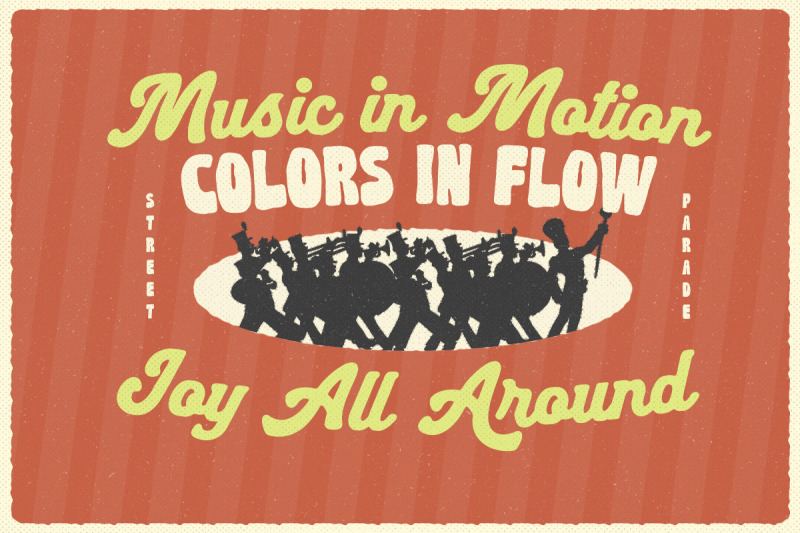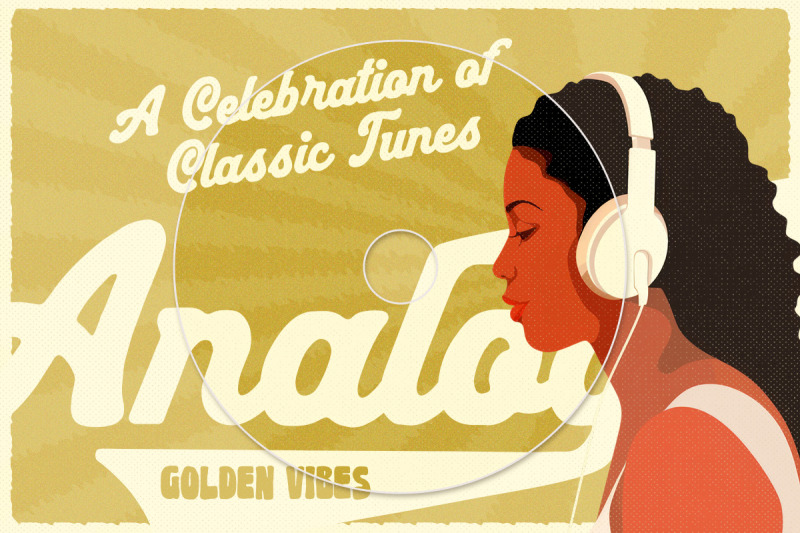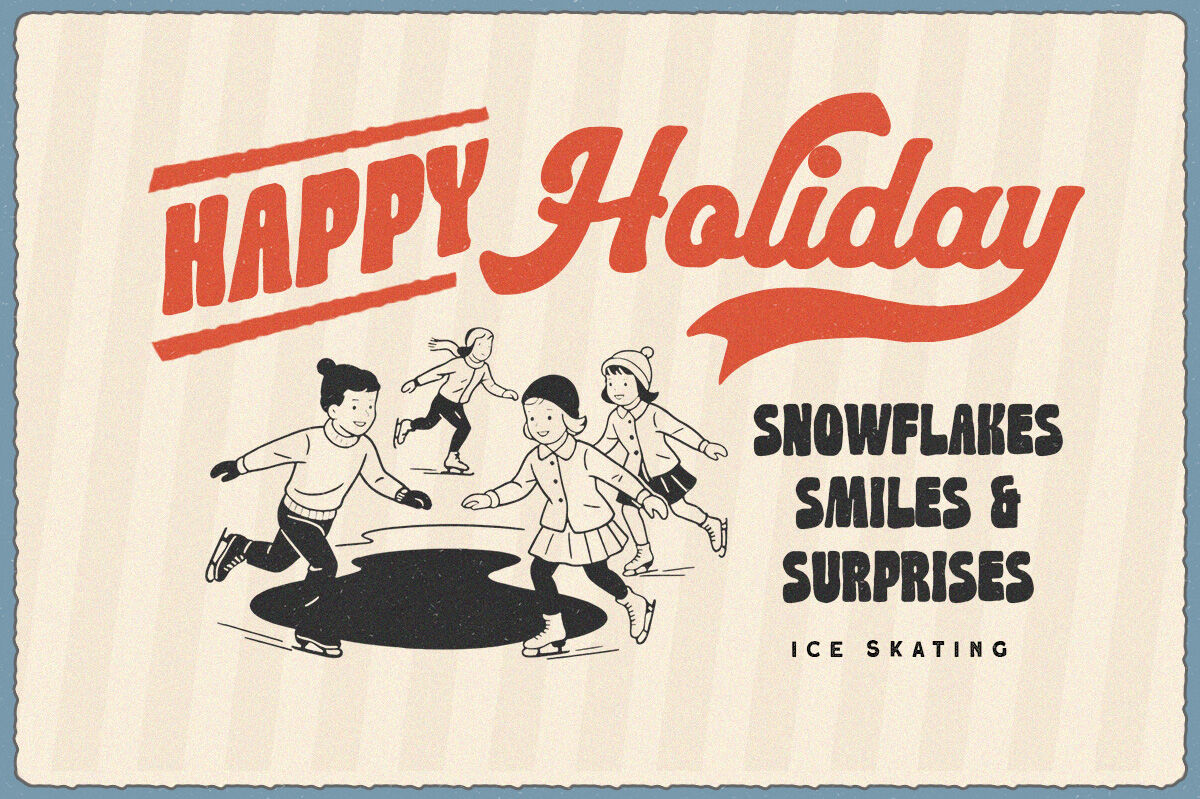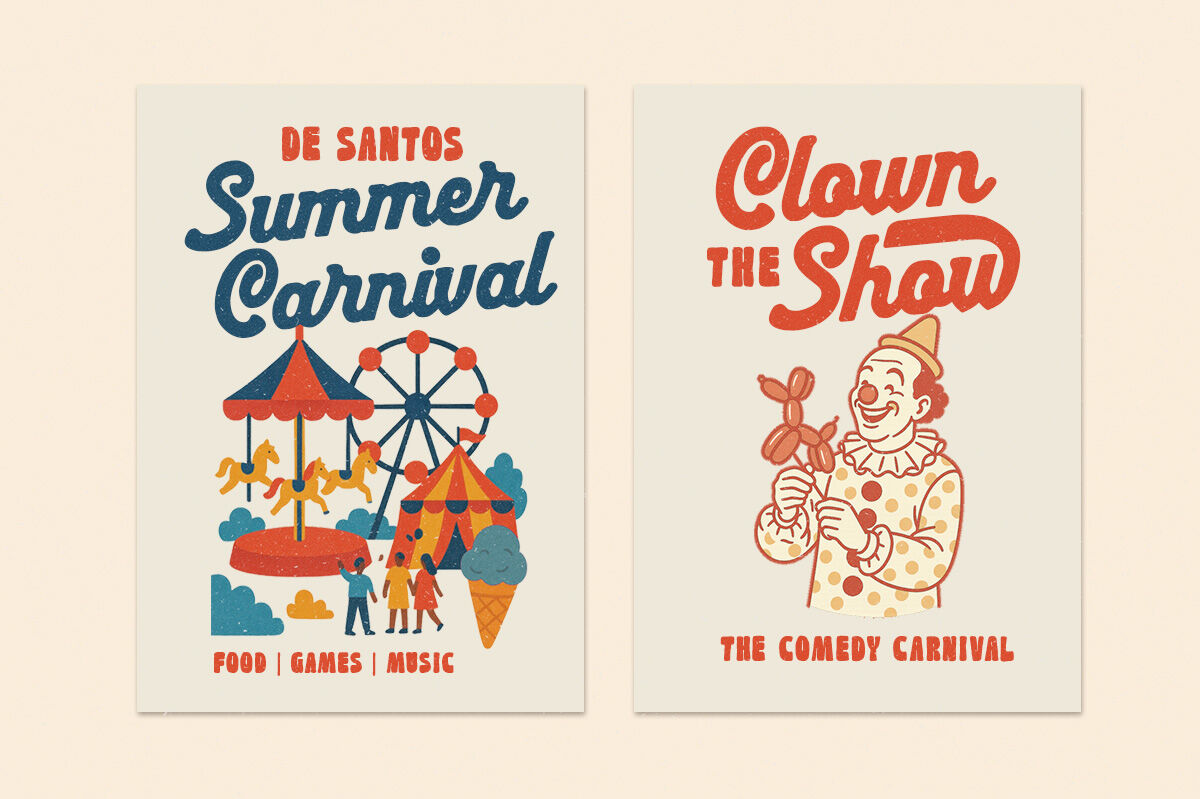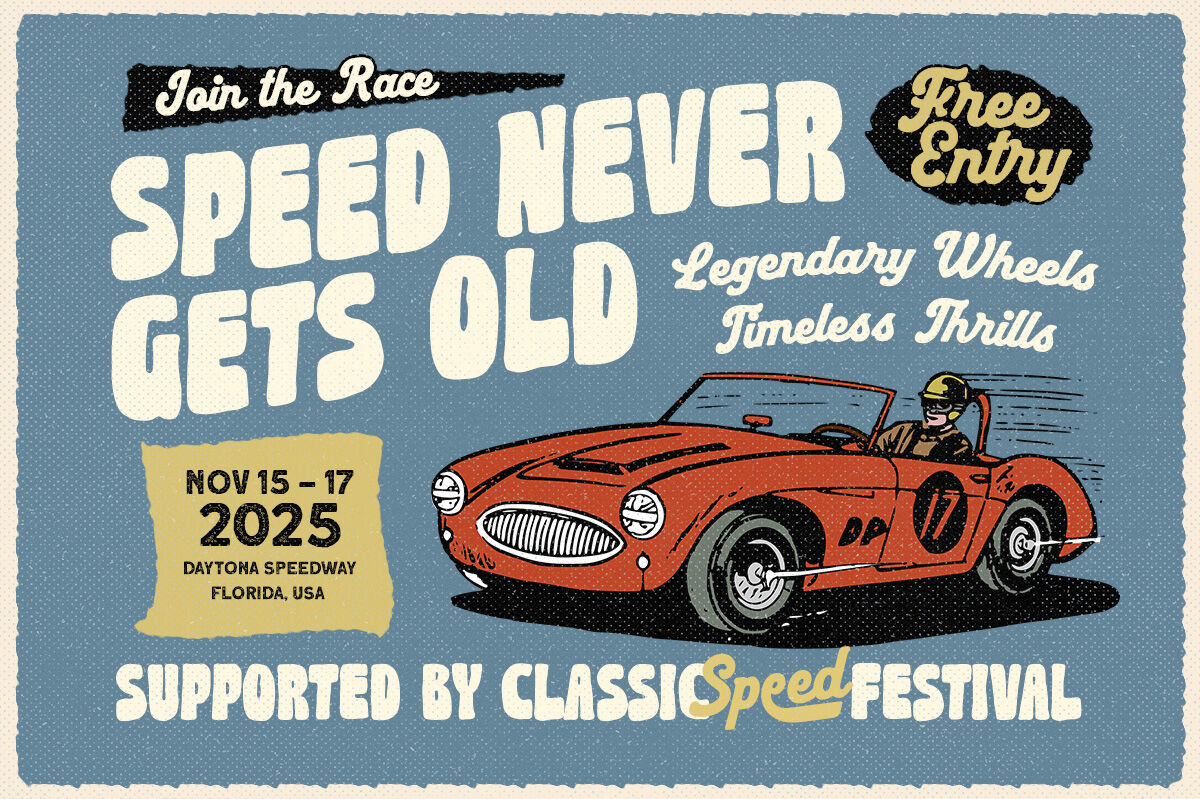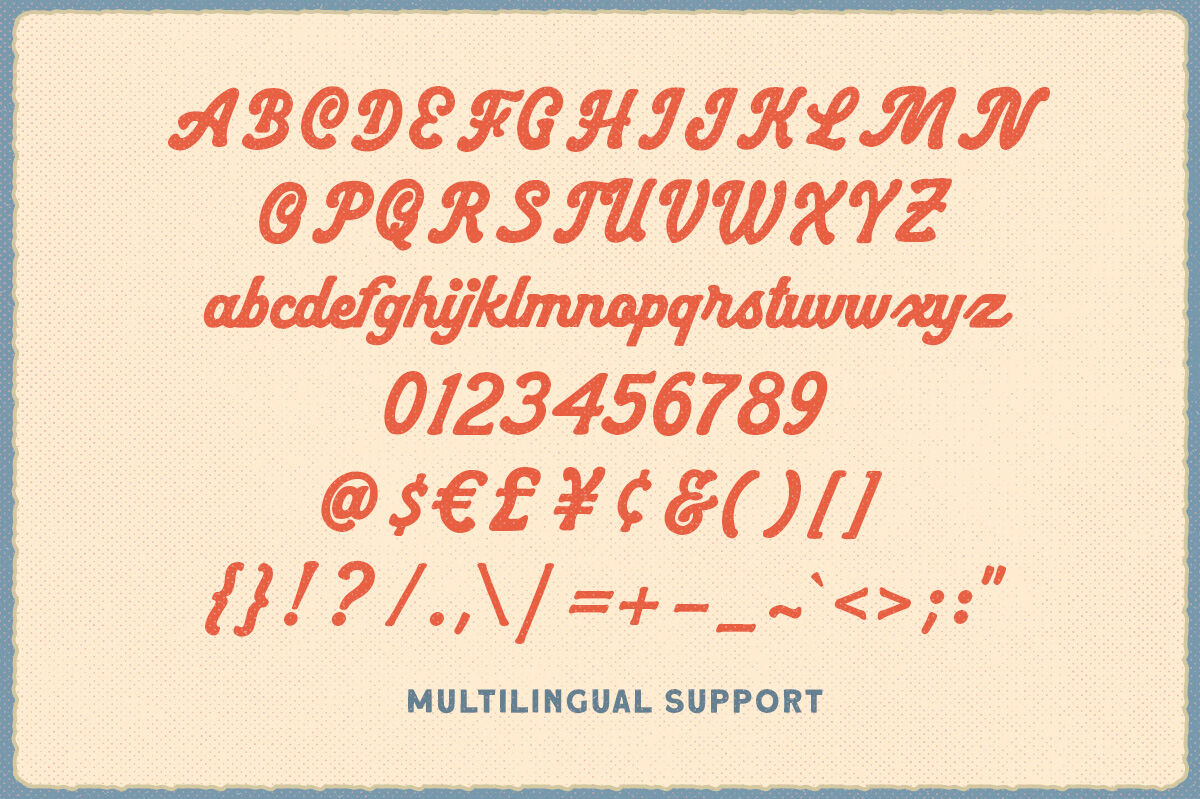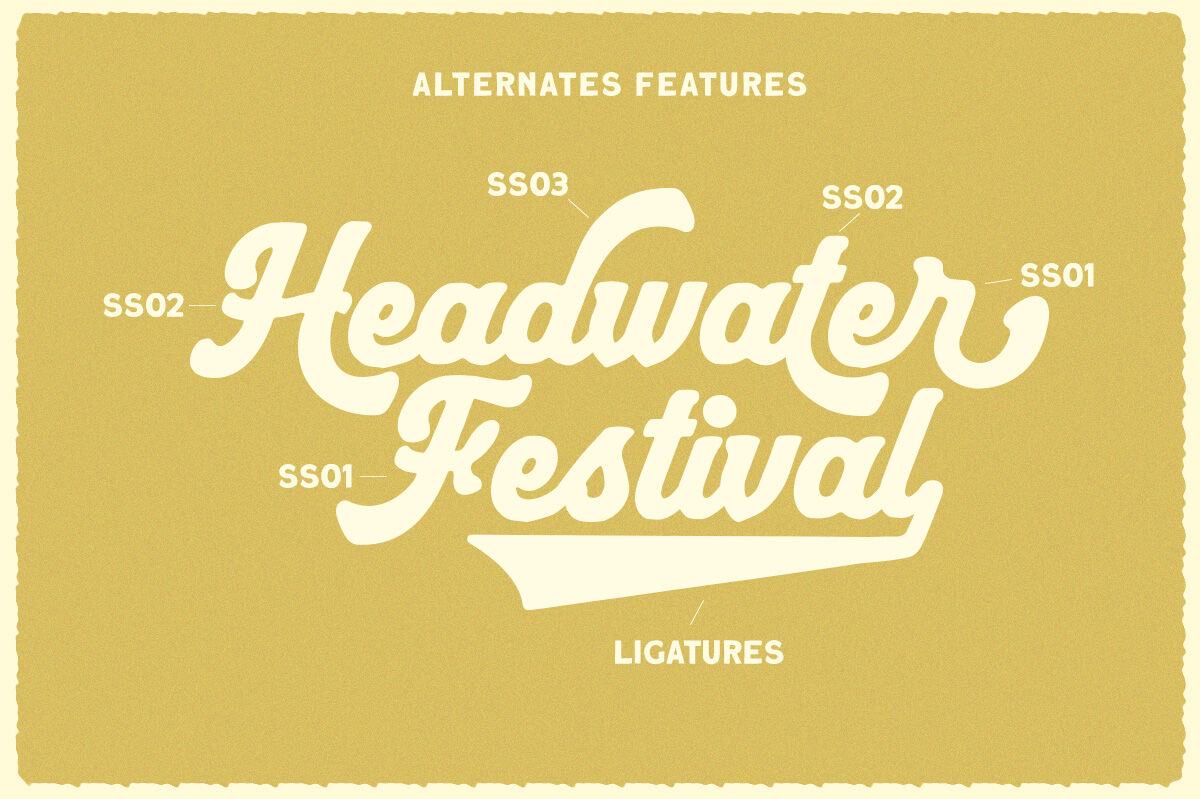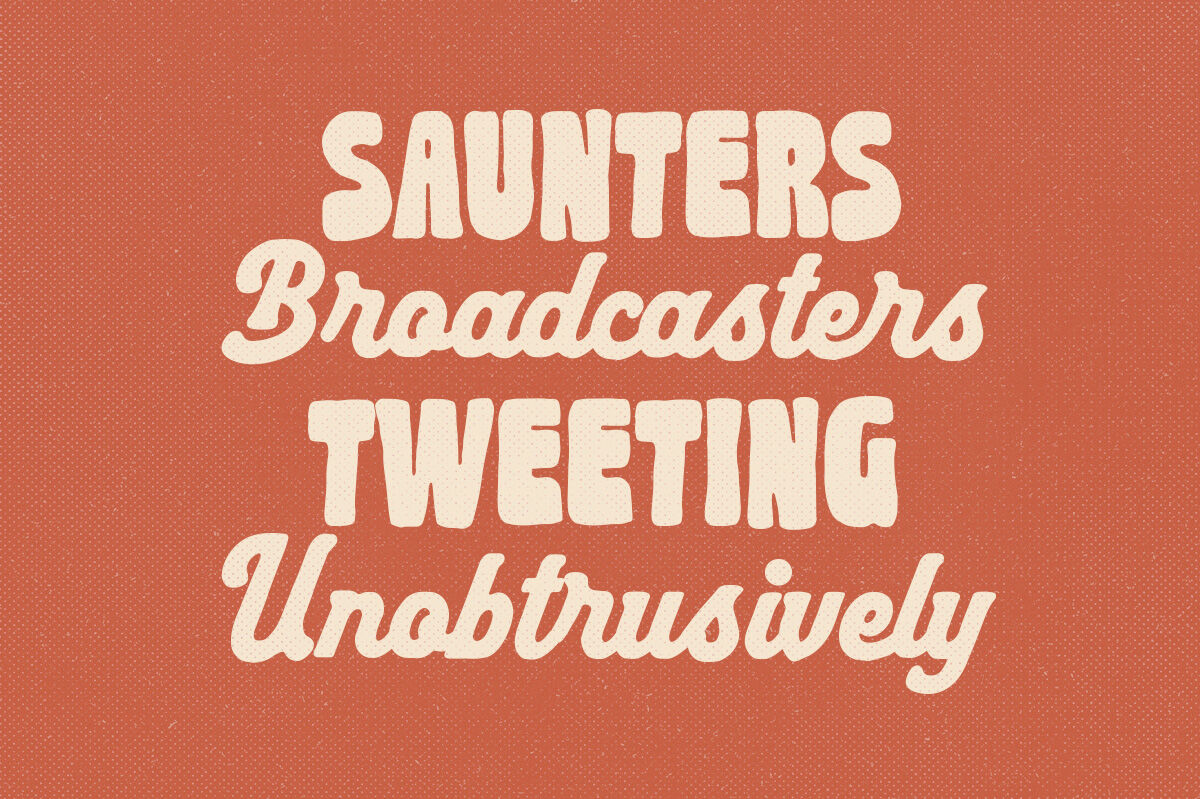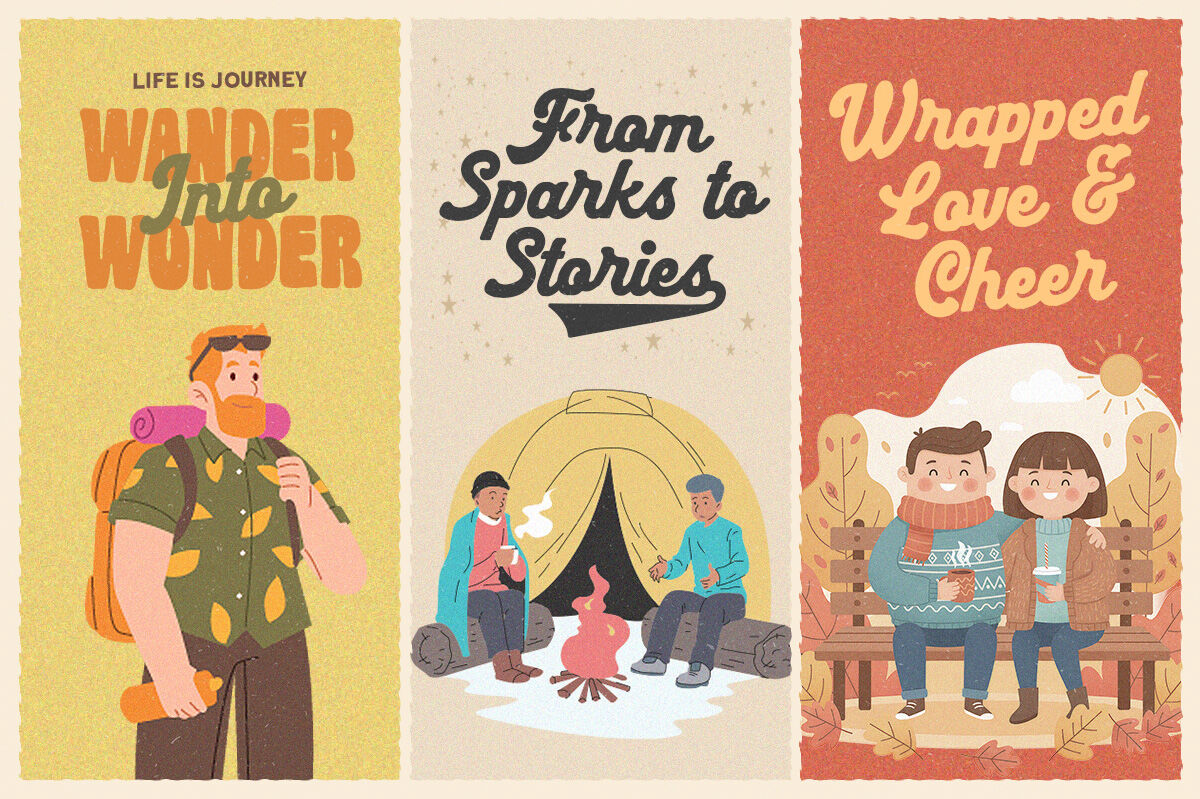
Tasty Parade is a bold and fun hand-drawn duo font that mixes playful script with chunky sans serif for the perfect retro-inspired combo. Its lively curves and vintage poster vibe make it ideal for food branding, packaging, cafe menus, social media graphics, and eye-catching headlines. With a cheerful personality and nostalgic touch, Tasty Parade brings energy, flavor, and a parade of fun to any design, making your project feel both fresh and timeless.
Uppercase & lowercase
Numbers and punctuation
Alternates & Ligatures
Multilingual Support